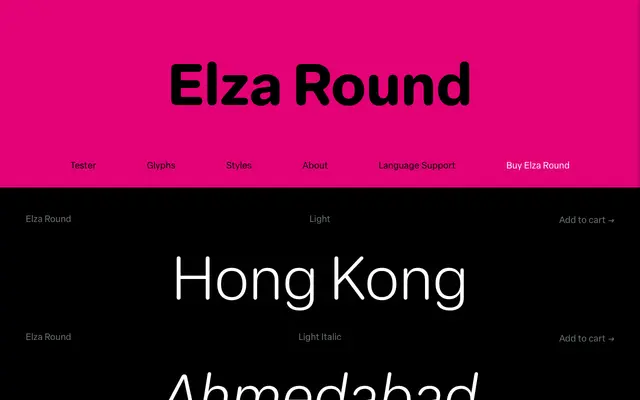
Elza Round
A rounded variant of the Elza family by Daniel Sabino, offered in six weights with matching italics and variable font options.
Derived from the Elza family, this version applies rounded terminals across all six weights from Light to Black, each accompanied by an italic. A variable font edition is also available in both roman and italic axes. The extensive language support covers a broad sweep of Latin-script languages, making it suitable for international publishing and interface work where a softer tone is needed.
Elza Round is the rounded variant of the Elza family, a humanist sans with softened terminals throughout its weight range, retaining the warm proportions characteristic of humanist construction.